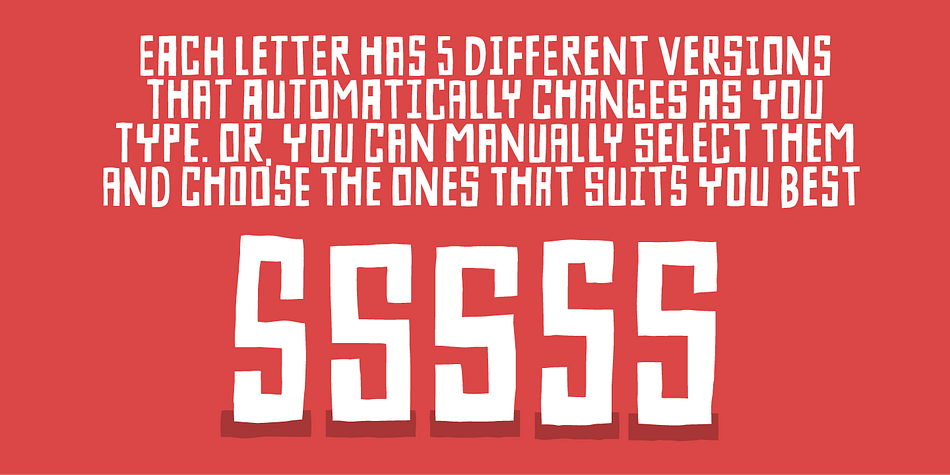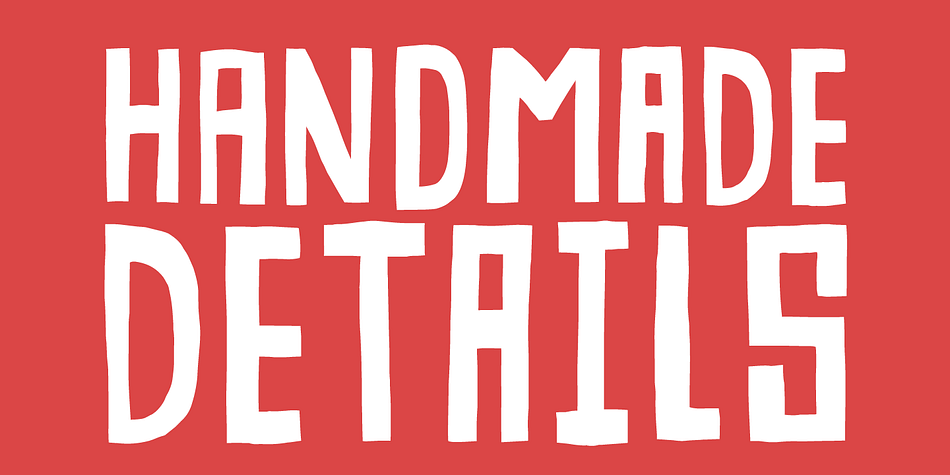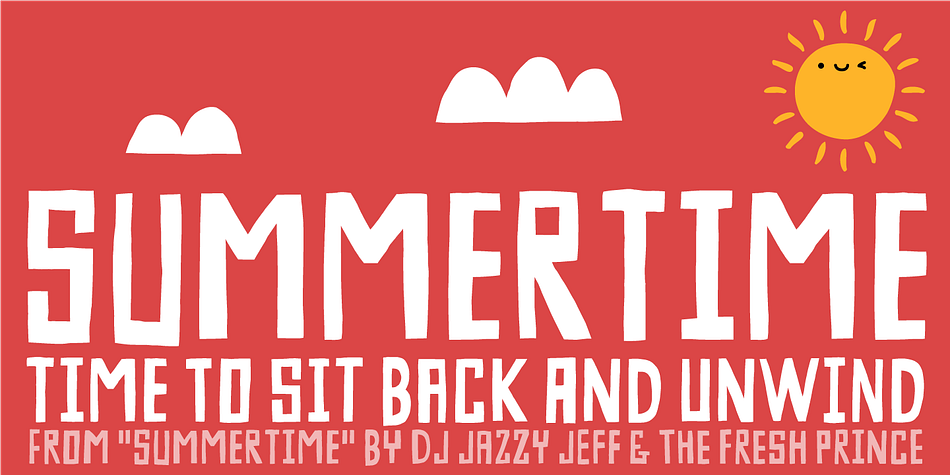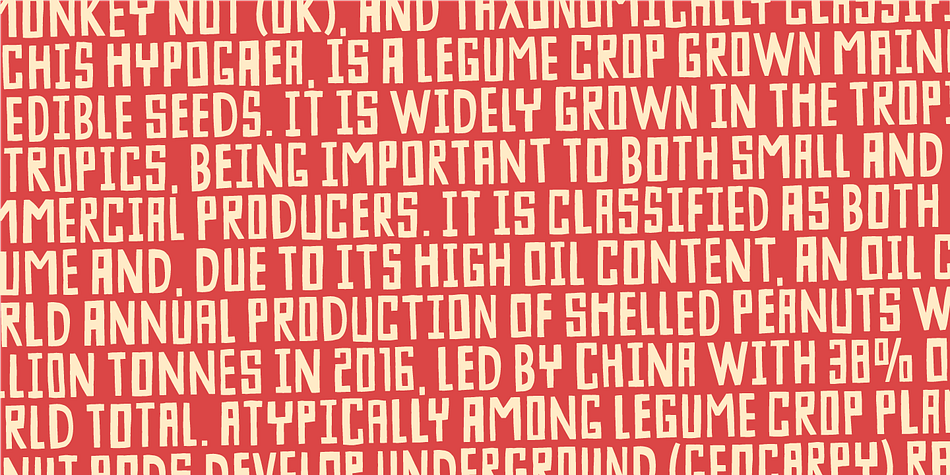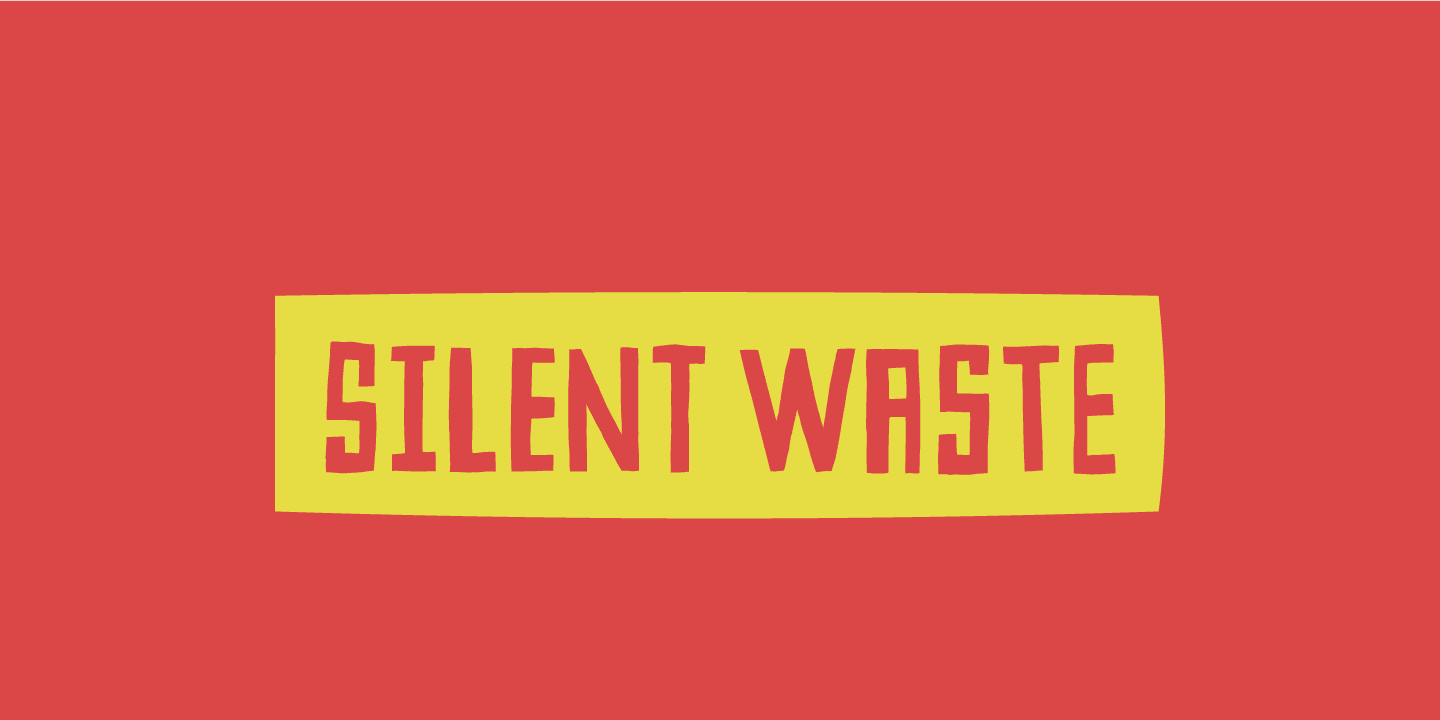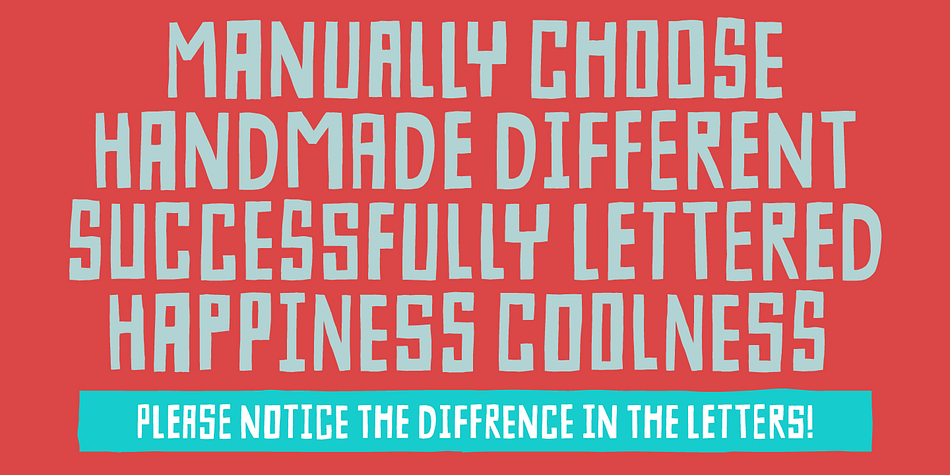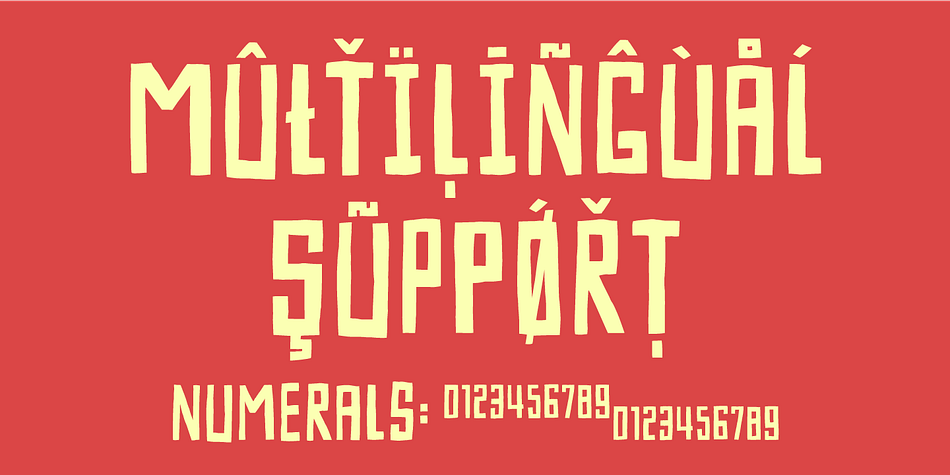
Designed by Jakob Fischer, Silent Waste is a hand display font family. This typeface has two styles and was published by Bogstav.
Silent Waste is based upon a misspelling on a sign. It’s handdrawn, yet digitally manipulated. But you can’t tell!